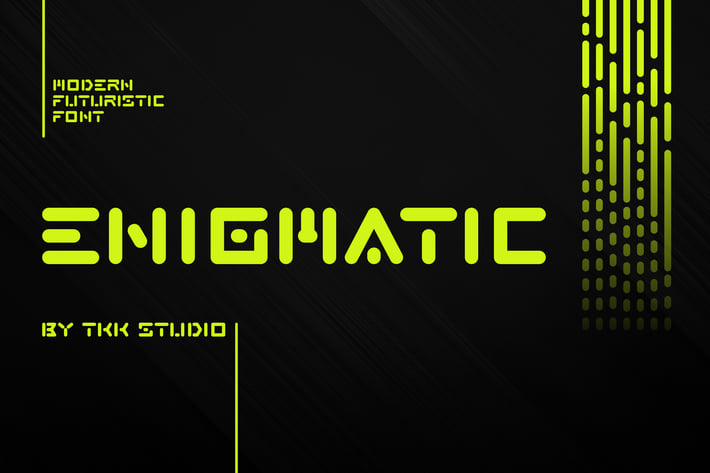
ENIGMATIC - Modern Futuristic font
ENIGMATIC
ENIGMATIC is a futuristic techno typeface designed with modular structure, sharp cuts, and tight geometry that evokes digital innovation and artificial intelligence. Its squared forms and high contrast make it feel coded, robotic, and mysterious, ideal for UI overlays, branding for tech startups, or modern gaming titles.
This font’s cybernetic style delivers a clean yet bold voice that fits streaming overlays, digital posters, esports packaging, and futuristic ads. The vibe is confident and edgy, built for high-impact environments.
From sci-fi movie posters to futuristic energy drinks, ENIGMATIC brings that coded machine-human hybrid vibe your visuals crave. It’s highly effective for branding, esports, tech wearables, editorials, apps, or web headers—especially when you want to evoke mystery, logic, or digital dominance.
Let this font electrify your work with a sleek dystopian look that resonates with next-gen aesthetics.
Key Features :
Sci-Fi Inspired Design
- Modular structure with square terminals and consistent widths
- Balanced spacing for futuristic UI readability
- Edgy and bold, without sacrificing digital clarity
Tailored for Digital Creators
- Perfect for branding, esports, tech packaging, product names, and movie titles
- Evokes modern sci-fi, AI, and human-machine themes
- Strong presence in both large-scale and compact applications
The future is coded—ENIGMATIC is your blueprint. Whether you're building a cyber-themed brand, launching a tech startup, or designing for the next-gen gaming world, this typeface will command attention. Download now and build your world with digital precision.
Perfect for designers, UI experts, brand strategists, and futuristic storytellers.